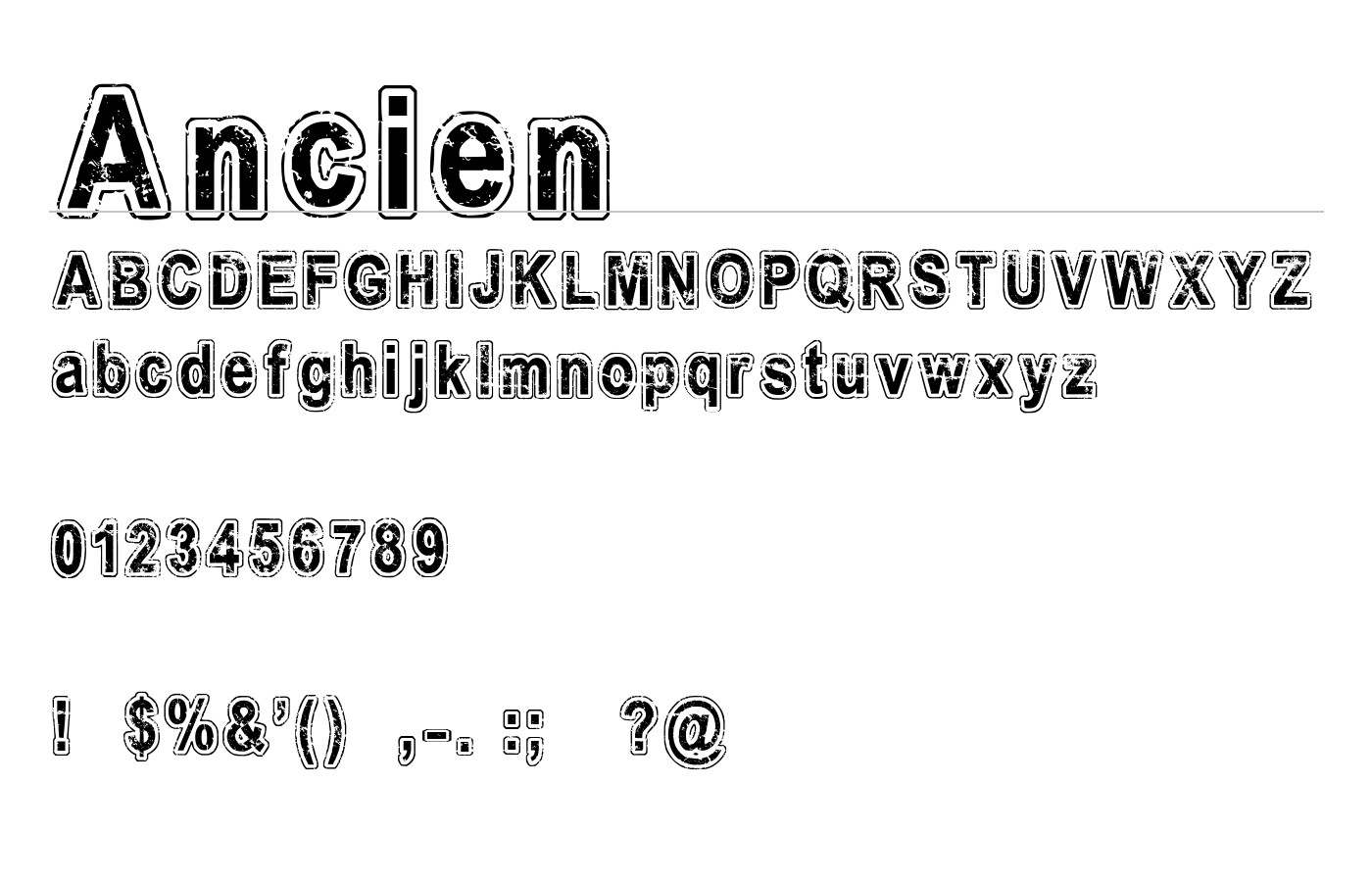
Ancien is a bold, condensed sans serif font with a distressed, vintage texture that gives it a rugged and worn appearance. Its tall x-height and strong geometric letterforms make it highly legible, while the rough edges add character and a nostalgic feel. This font is perfect for logos, posters, and branding projects that want to evoke a bold, industrial, or retro aesthetic with a touch of authenticity.
Ancien Font
About Ancien Font